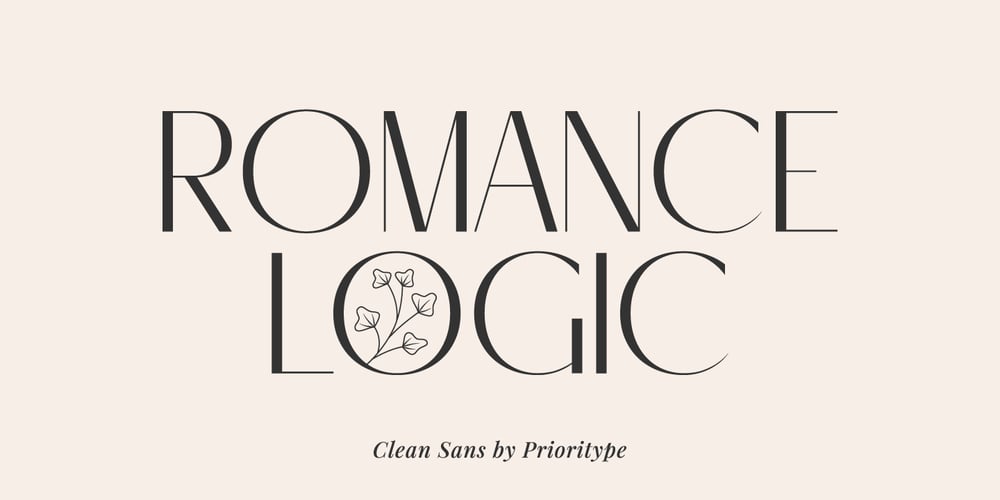
Romance Logic
Romance Logic font
Romance Logic Font Family was designed by Prio Nurokhim Aji and published by Prioritype. Romance Logic contains 1 styles and family package options. Introducing a new typeface with a simple yet classy feel. Say hi to the “Romance Logic” font. Sans serif typeface with different widths on the letters C, D, G, O and Q, makes this typeface unique. Suitable for branding designs, logos, creative posts etc.Features: Uppercase, Lowercase, Numeral, Punctuation & Multilingual.Multilingual contained: Afrikaans, Albanian, Asu, Basque, Bemba, Bena, Breton, Catalan, Chiga, Cornish, Danish, Dutch, English, Estonian, Filipino, Finnish, French, Friulian, Galician, German, Gusii, Indonesian, Irish, Italian, Kabuverdianu, Kalenjin, Kinyarwanda, Luo, Luxembourgish, Luyia, Machame, Makhuwa-Meetto, Makonde, Malagasy, Manx, Morisyen, North Ndebele, Norwegian Bokmål, Norwegian Nynorsk, Nyankole, Oromo, Portuguese, Quechua, Romansh, Rombo, Rundi, Rwa, Samburu, Sango, Sangu, Scottish Gaelic, Sena, Shambala, Shona, Soga, Somali, Spanish, Swahili, Swedish, Swiss German, Taita, Teso, Uzbek (Latin), Volapük, Vunjo, Zulu.Thanks!–Uppercase